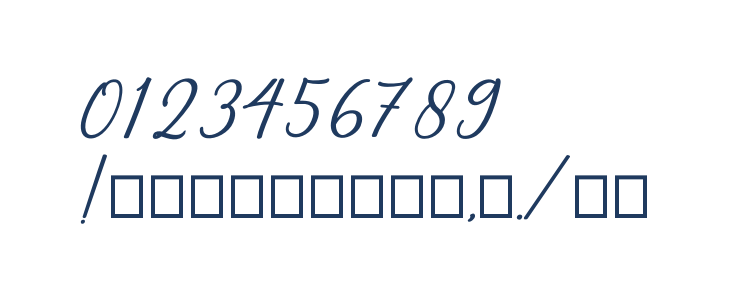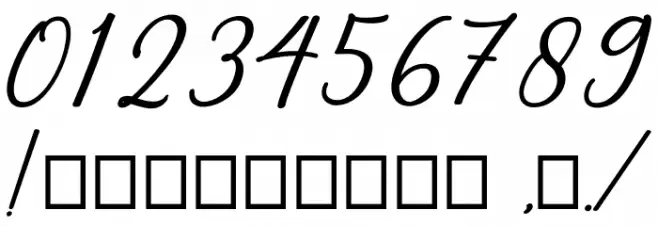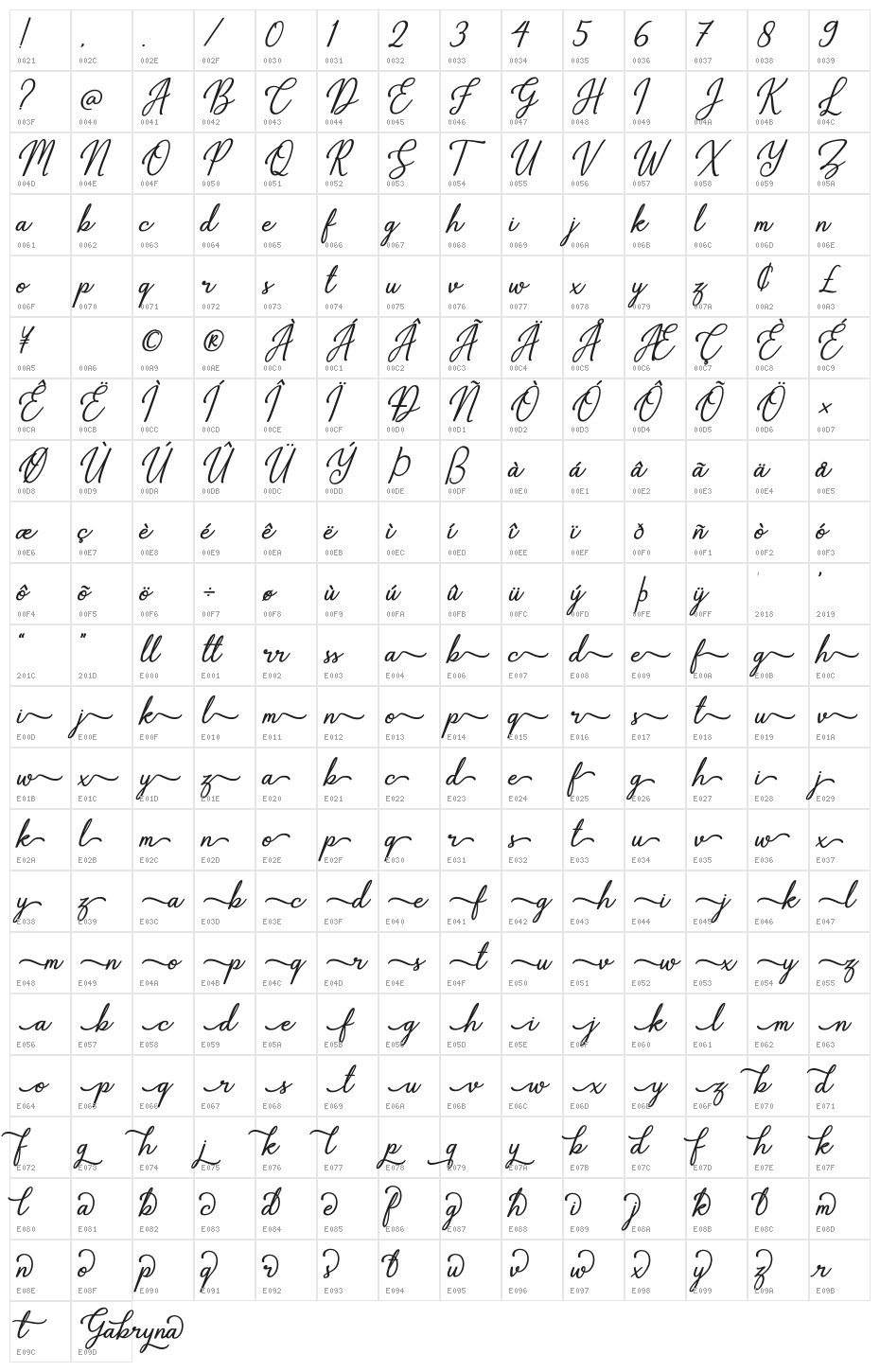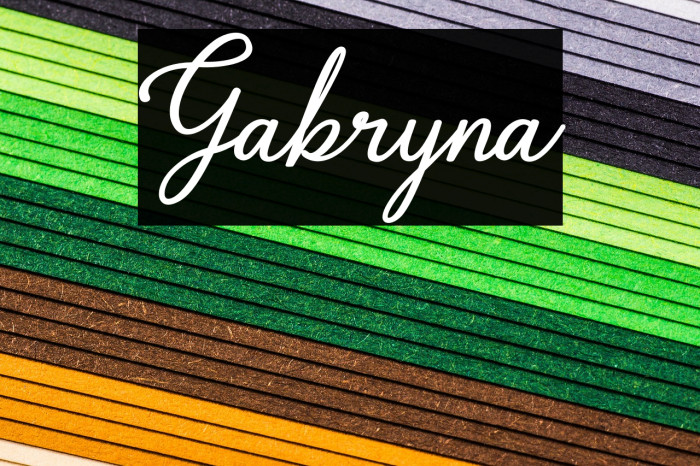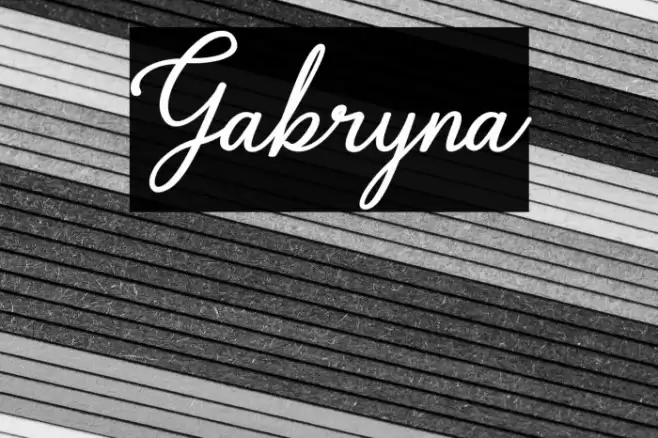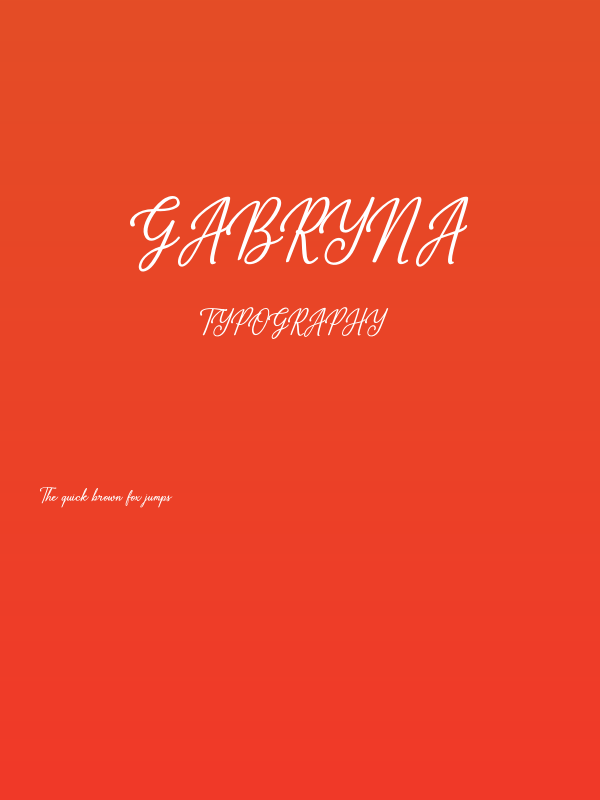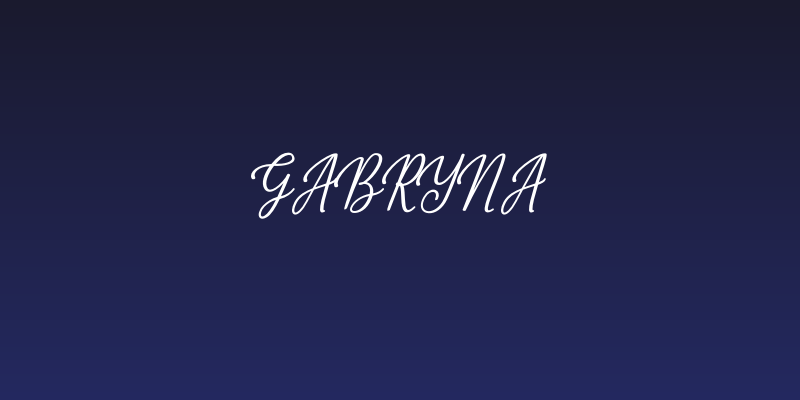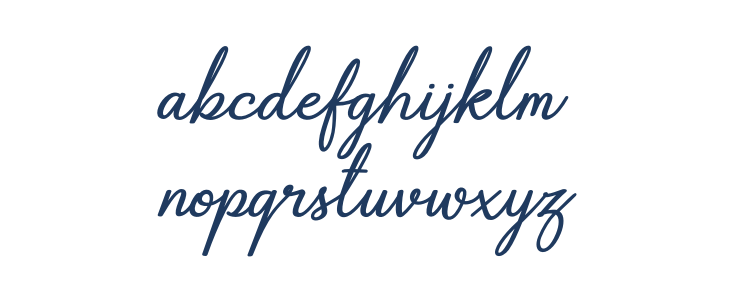
Gabryna Font
Gabryna Description
This elegant script font features fluid, connected strokes that mimic the natural flow of handwriting. The uppercase letters are ornate with sweeping curves, while the lowercase letters maintain a consistent rhythm, enhancing readability. The numerals are stylish yet clear, complementing the overall aesthetic. Special characters are crafted with the same attention to detail, making this font versatile for various applications. Its sophisticated appearance makes it ideal for formal invitations, branding, and decorative purposes. The consistent stroke width and smooth transitions between characters create a harmonious visual experience.
| Use Case | Headlines, Invitations, Branding |
| Proposed Projects | Ideal for wedding invitations, elegant branding, greeting cards, and decorative signage. |